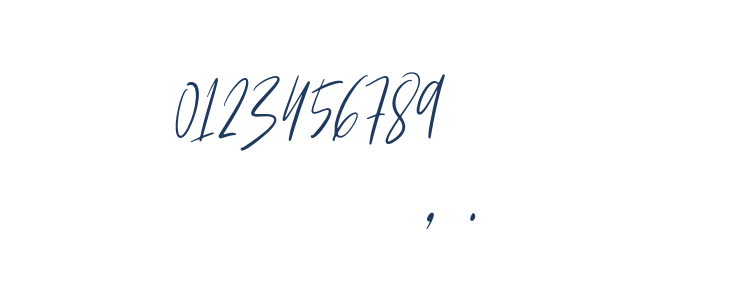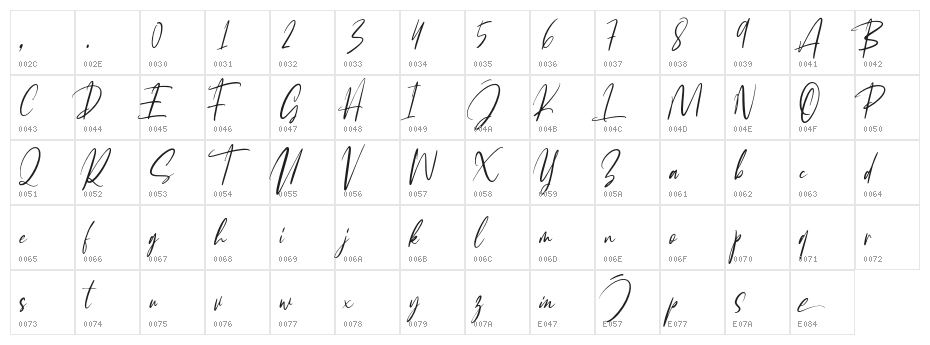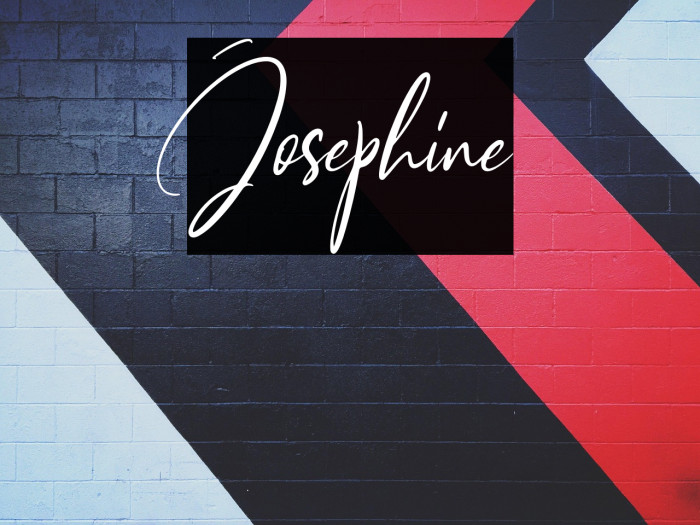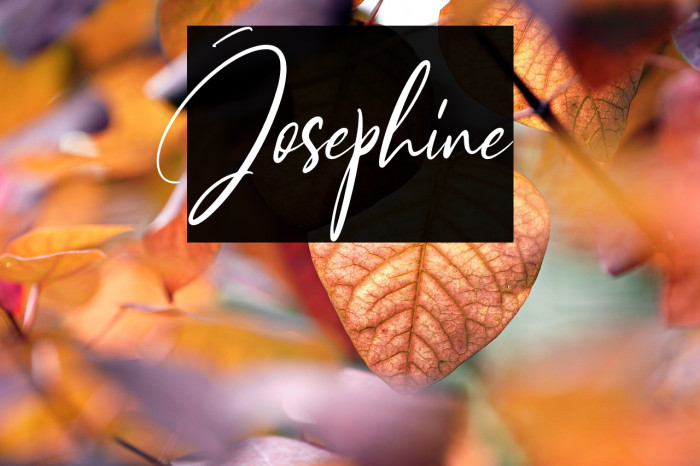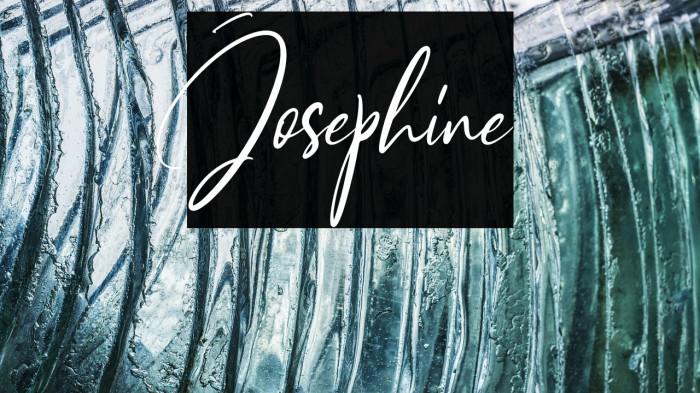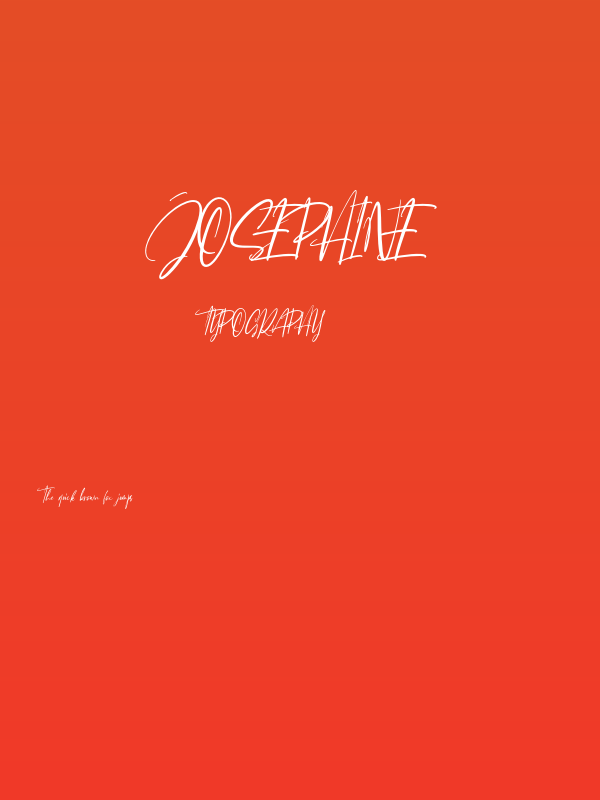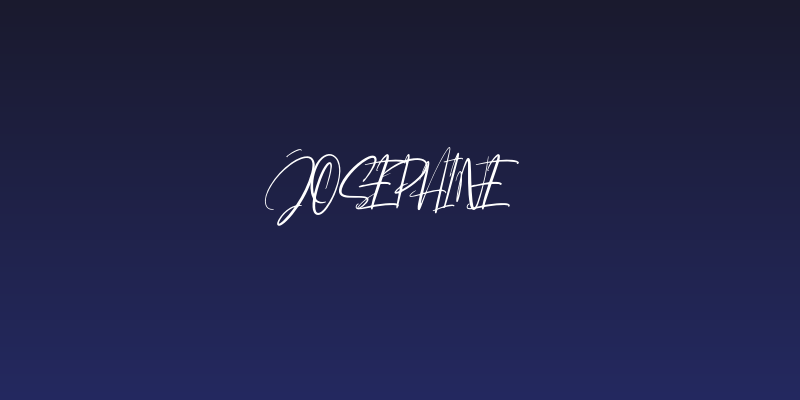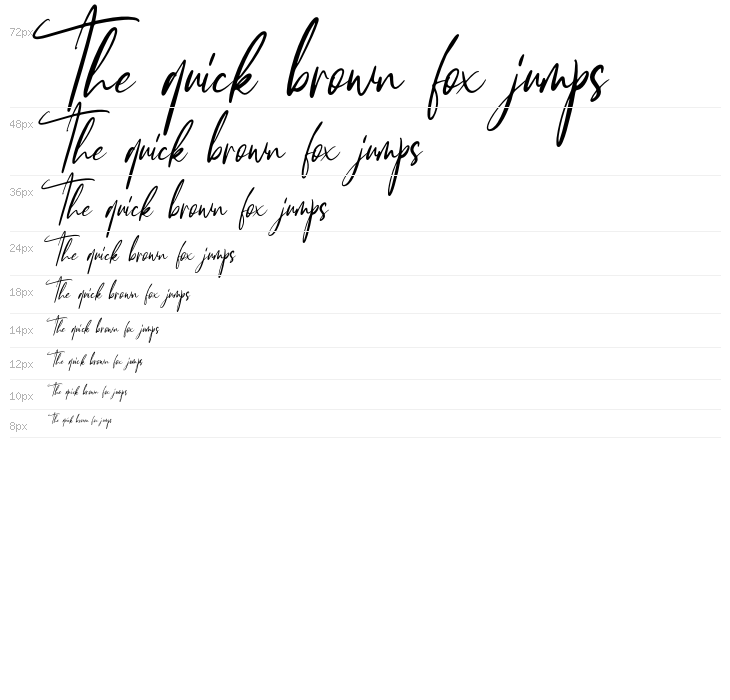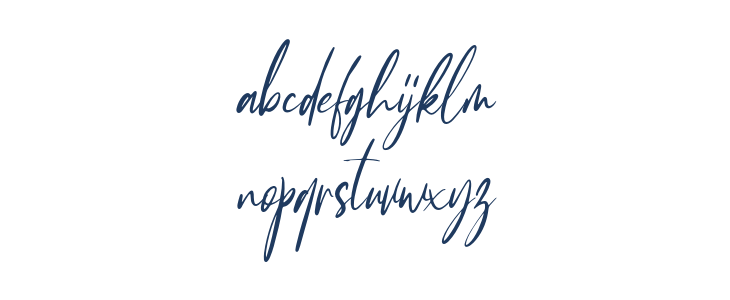
Josephine Font
Josephine Description
This font features an elegant and expressive handwritten style, characterized by its fluid and dynamic strokes. The letters are interconnected with a natural flow, giving it a personal and artistic touch. The uppercase letters are bold and prominent, while the lowercase letters maintain a consistent rhythm and balance. The numerals are stylishly integrated, matching the overall aesthetic. The special characters add a playful and creative element, enhancing the font's versatility. Its unique charm makes it suitable for projects that require a personal and artistic flair.